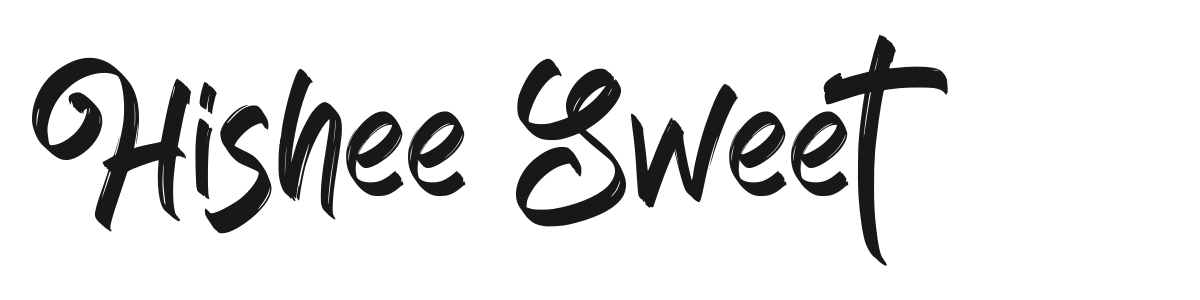
Hishee Sweet
Hishee Sweet is a high-energy brush script with raw, ink-textured strokes and dramatic weight contrast. The loose, flowing characters carry an authentic hand-lettered quality, as if written quickly with a wide brush. It brings spontaneous street-art energy to posters, packaging, and brand identities.